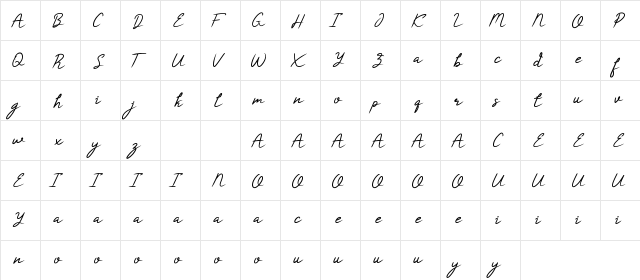
CharlynRushmoorDemo Regular
| Foundry | Edric Studio |
| Designer | Fahri Firdaus & Suci Anita |
Design Context for CharlynRushmoorDemo Typeface
CharlynRushmoorDemo is a composed and adaptable typeface that performs quietly and consistently across a wide range of design contexts.